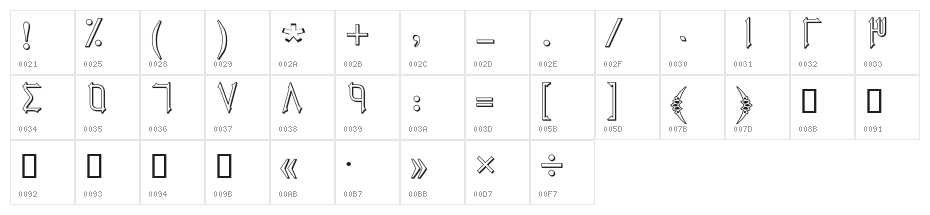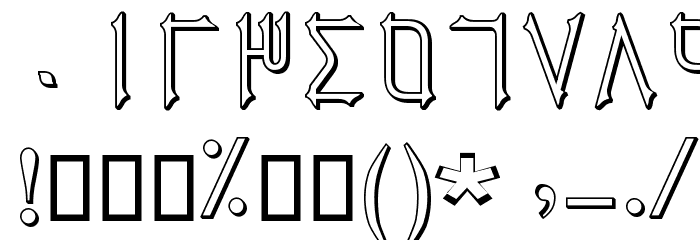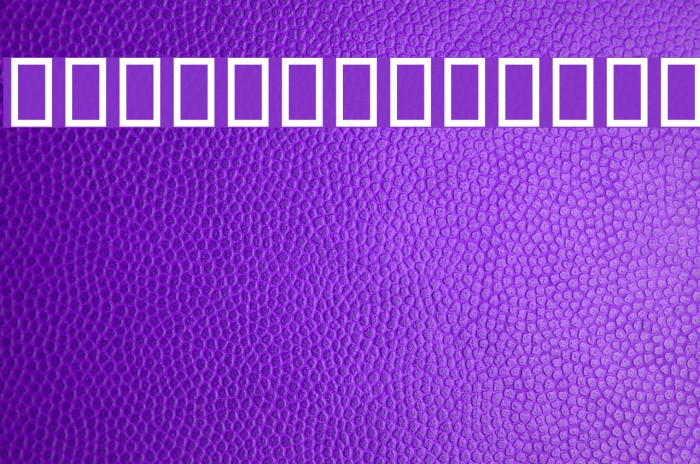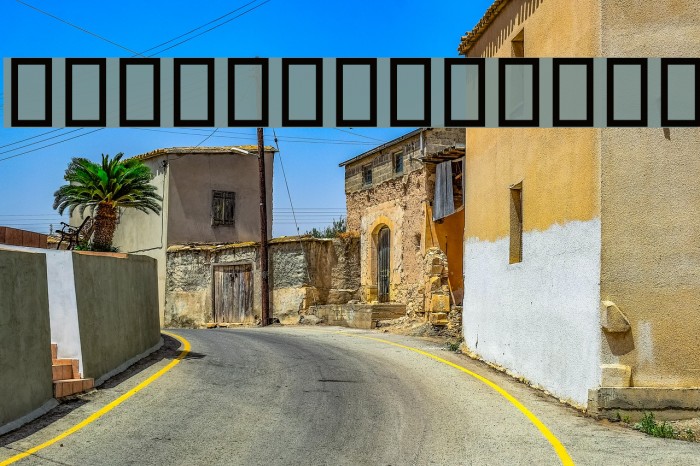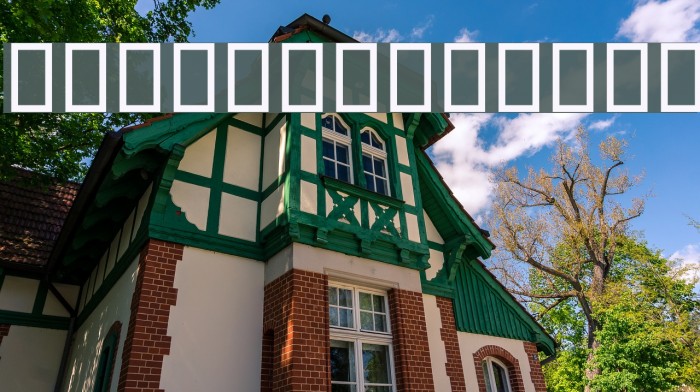
Hadis 3D Shadow Font
Hadis 3D Shadow Description
This font features a unique and decorative style with a 3D shadow effect that gives it a bold and striking appearance. The characters are designed with sharp, angular edges and a distinct shadow that adds depth and dimension. The overall look is reminiscent of ancient or mystical scripts, making it ideal for projects that require a touch of fantasy or historical flair. The numbers and special characters are equally stylized, maintaining the theme throughout the set. This font is particularly suited for creative and artistic projects where a dramatic and eye-catching typeface is desired.
| Proposed Projects | Ideal for fantasy book covers, game titles, movie posters, and themed event invitations. |